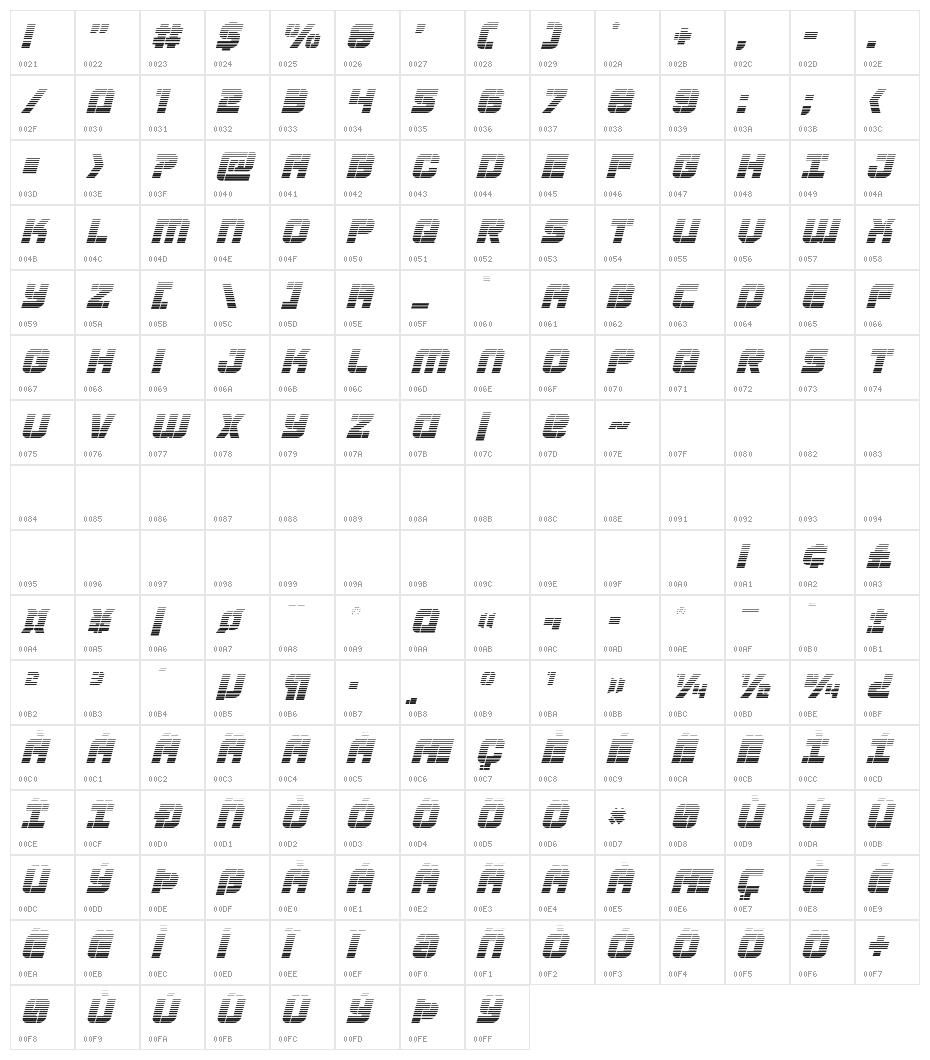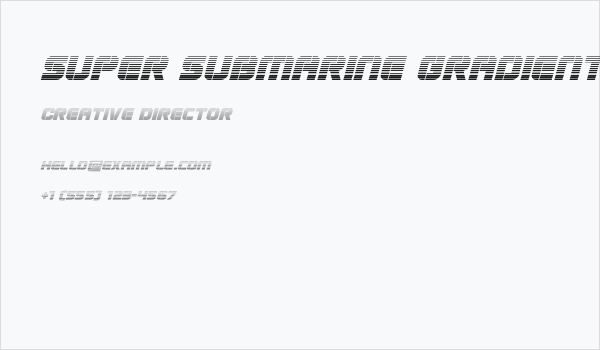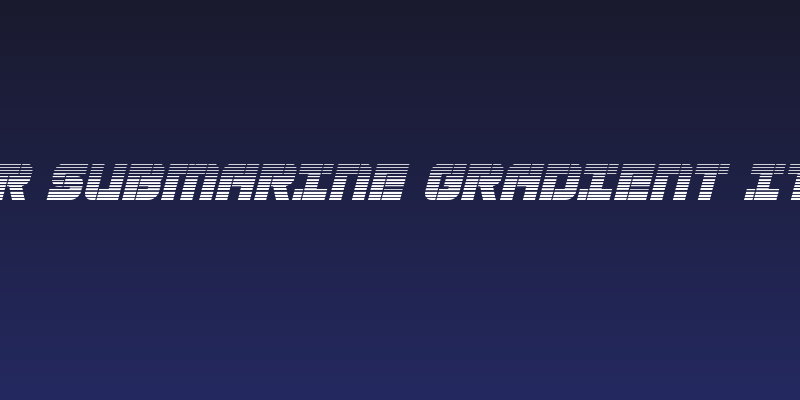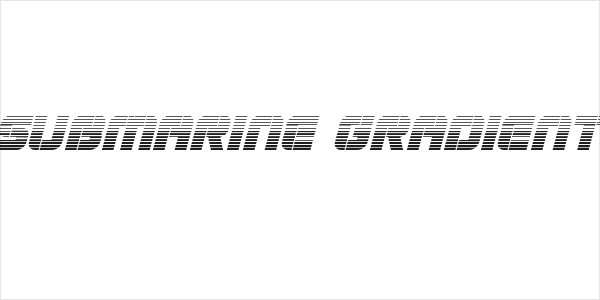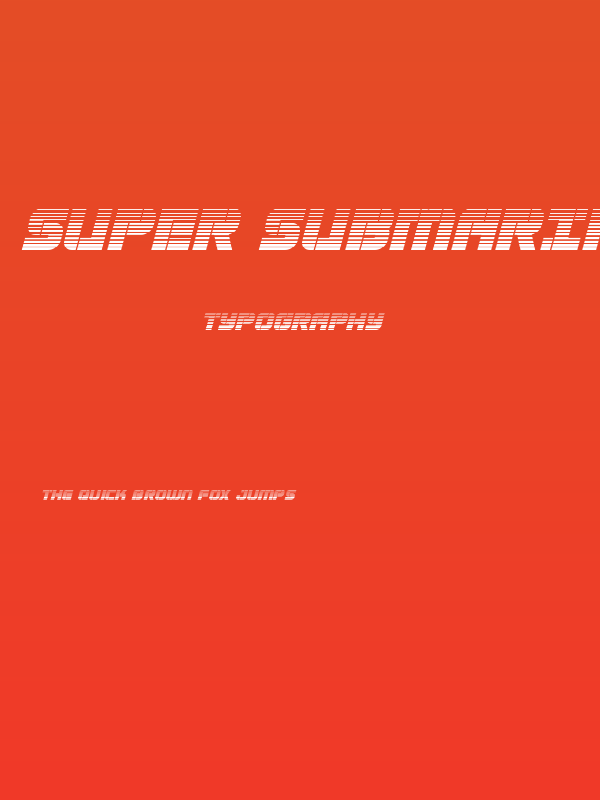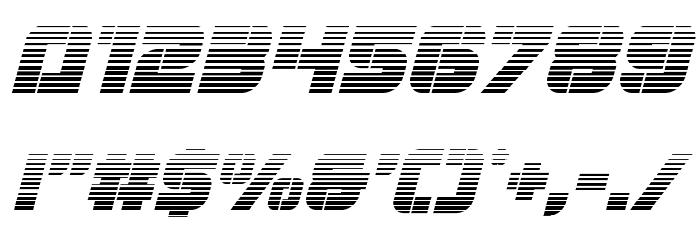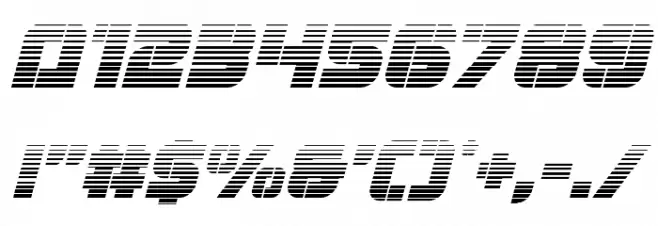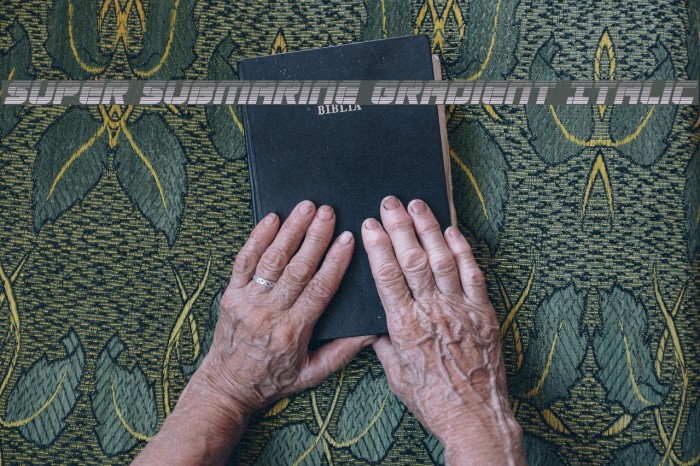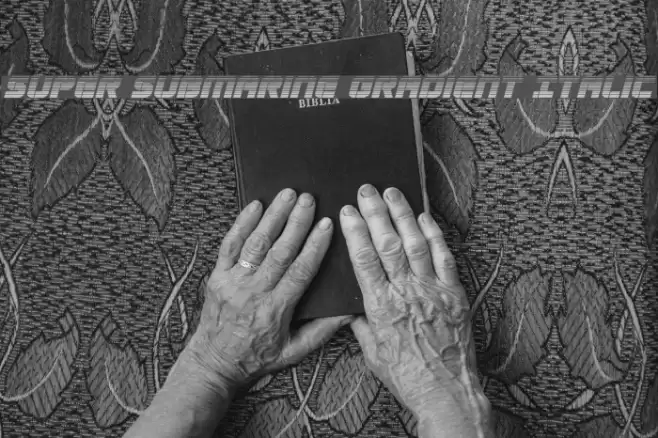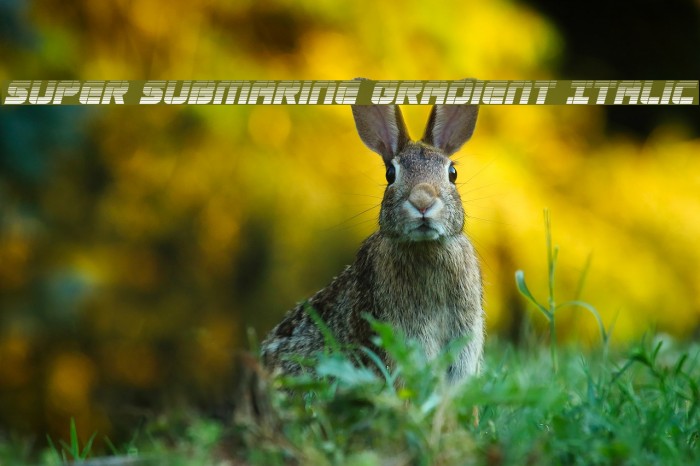
Super Submarine Gradient Italic Font
Super Submarine Gradient Italic Description
This font features a bold, italicized style with a distinct gradient effect created by horizontal lines running through each character. The design gives a sense of movement and modernity, making it stand out with its unique visual texture. The uppercase and lowercase letters maintain a consistent width, while the numbers and special characters follow the same stylistic approach, ensuring uniformity across all elements. The font's futuristic and dynamic appearance makes it suitable for creative and eye-catching designs.
| Use Case | Logos, Headlines, Posters |
| Proposed Projects | Ideal for futuristic designs, technology branding, sports team logos, and dynamic posters. |